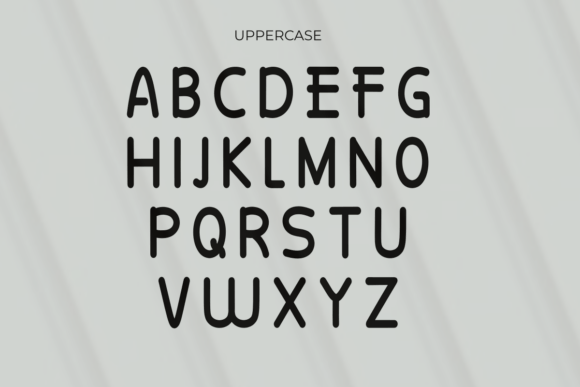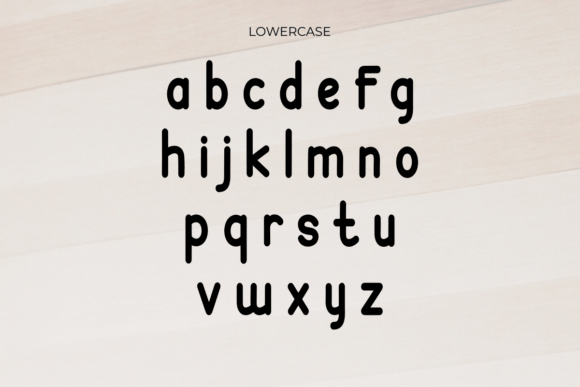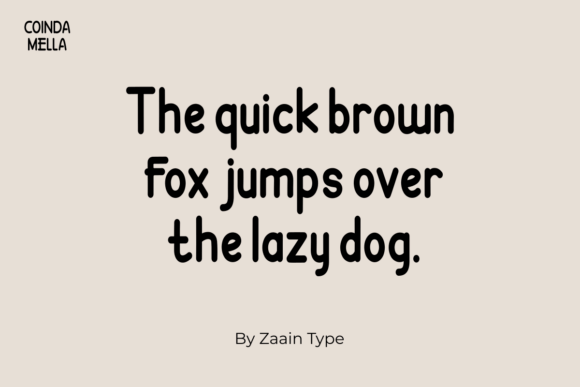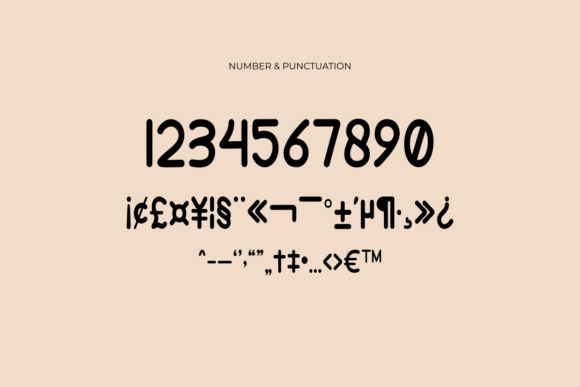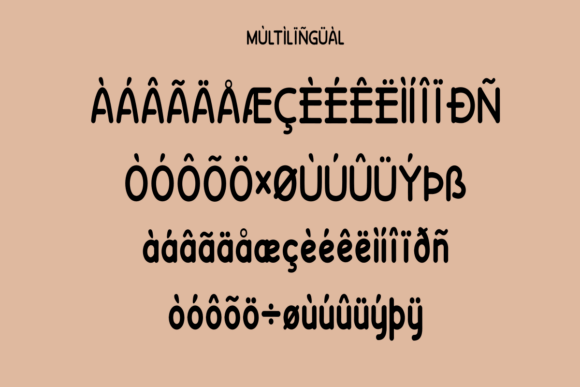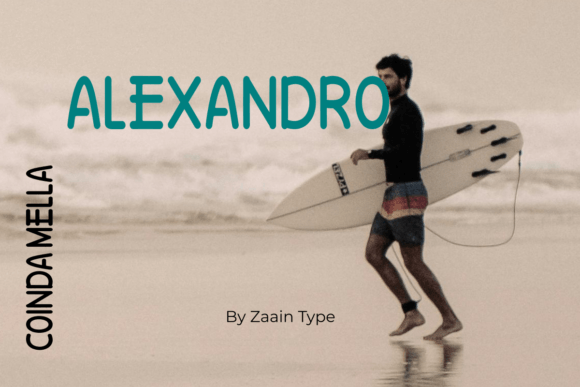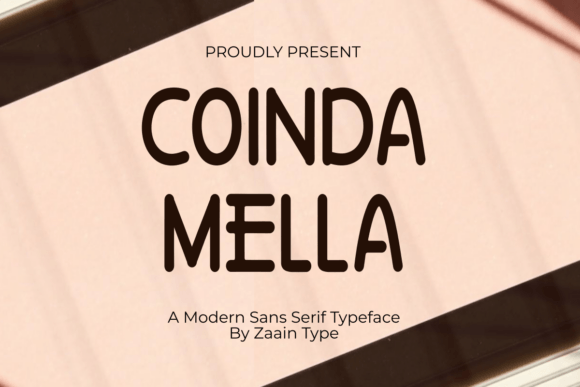
Discover the Elegance of Coinda Mella Font: Elevate Your Designs with Modern Sophistication
In the vast universe of typography, few fonts manage to strike a balance between simplicity and sophistication as effortlessly as Coinda Mella. This sleek, sans serif font has emerged as a beacon of modern elegance, designed to transform your design projects with its clean aesthetic and professional appeal. Whether you’re a seasoned designer or a crafting enthusiast, Coinda Mella is poised to become your go-to choice for projects that demand a touch of refinement and a lot of readability.
The Essence of Coinda Mella: Simplicity Meets Sophistication
Coinda Mella’s design philosophy revolves around the concept of minimalism without sacrificing elegance. Its sans serif structure lends it a contemporary look that is instantly appealing. The clean lines and curves of this font ensure that it remains versatile, capable of adapting to various design contexts without losing its charm. This adaptability makes Coinda Mella an impeccable choice for a wide range of applications, from branding and web design to print media.
Unparalleled Readability: The Mark of Excellence
One of the standout features of Coinda Mella is its high readability factor. This font maintains its clarity and legibility across various sizes, ensuring that your message is conveyed effectively, whether it’s on a billboard or a business card. The meticulous design of each character guarantees that your text is not only visually appealing but also compelling and engaging, capturing the attention of your audience effortlessly.
Versatility at Its Best: Seamless Integration Across Platforms
Coinda Mella’s versatility is one of its most compelling attributes. It seamlessly integrates with various design elements, enhancing branding projects with its modern touch. In web design, it contributes to a clean and user-friendly interface, improving the overall user experience. For print media, Coinda Mella brings a level of sophistication that can elevate any project from ordinary to extraordinary. Its ability to blend into different design landscapes makes it an invaluable asset for designers and crafters.
A Comprehensive Character Set: Limitless Creative Possibilities
Coinda Mella boasts a comprehensive character set that includes letters, numbers, and symbols. This extensive range of characters offers designers the flexibility to experiment with various design concepts without limitations. Whether you’re working on a multilingual project or need a variety of symbols to enhance your design, Coinda Mella has got you covered. This feature not only enhances the font’s versatility but also opens up a world of creative possibilities.
More Than Just a Font: A Design Statement
Choosing Coinda Mella is not merely about selecting a font for your project; it’s about making a design statement. This font infuses your designs with a touch of modern elegance, setting them apart in a crowded design landscape. With Coinda Mella, you can convey professionalism, sophistication, and a keen eye for detail. It’s an opportunity to elevate your brand’s visual identity and leave a lasting impression on your audience.
Embracing the Future of Design with Coinda Mella
As design trends continue to evolve, fonts like Coinda Mella are leading the way, defining the aesthetic of modern projects. Its sleek design, combined with high readability and versatility, positions it as a frontrunner in the typography world. By incorporating Coinda Mella into your design toolkit, you’re not just keeping up with current trends; you’re setting the stage for creating impactful, memorable designs.
In conclusion, Coinda Mella is more than just a font; it’s a design companion that can transform your creative projects with its modern sophistication and clean aesthetic. Its ability to blend simplicity with elegance, coupled with its versatility and readability, makes it an excellent choice for designers and crafters alike. As you embark on your next design journey, consider the impact that Coinda Mella can have, and discover a world where elegance meets innovation.